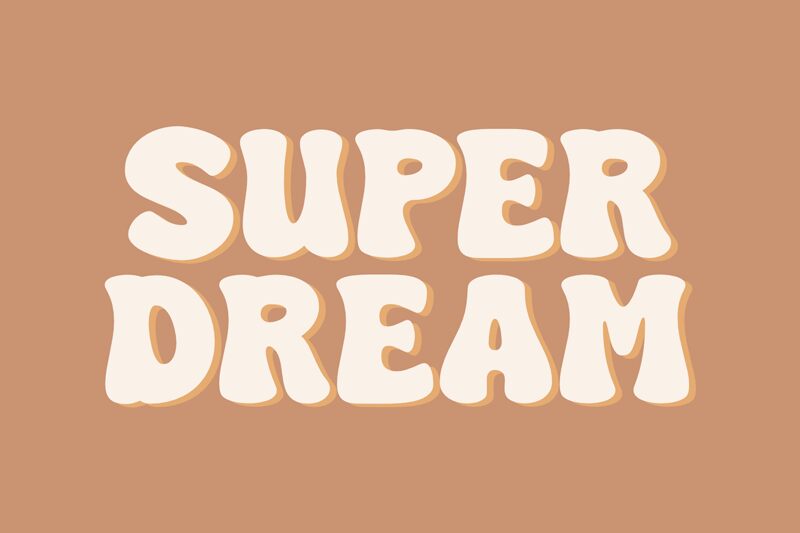
Super Dream
Super Dream, designed by fsuarez913, is a display font that exudes groovy vibes with its extra-bold weight.
Its curvaceous letterforms and playful flourishes make it perfect for retro-themed projects, capturing the essence of the psychedelic era. Use Super Dream to add a touch of nostalgia to album covers, party invitations, or funky poster designs. With its eye-catching style, this font is also ideal for branding projects that require a bold and unique identity.
Let your creativity flow with Super Dream's groovy charm and make your designs stand out from the crowd.